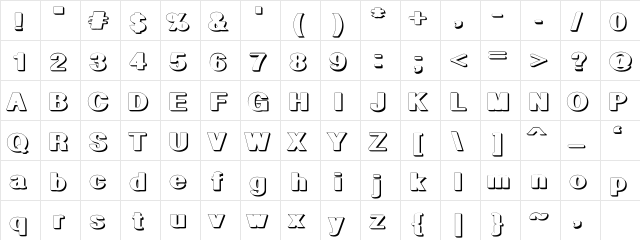
geometric RegularShadow
Design Context for geometric Typeface
geometric is built around its visual character rather than neutral utility — its distinctive forms are designed to make an impression at display sizes.
Font Pairing: Pair with a clean neutral sans-serif for body copy to let geometric's character lead without overwhelming the composition.
Pro Tip: Treat geometric as the centrepiece of your typographic hierarchy. One strong heading set in a decorative face can carry an entire layout.